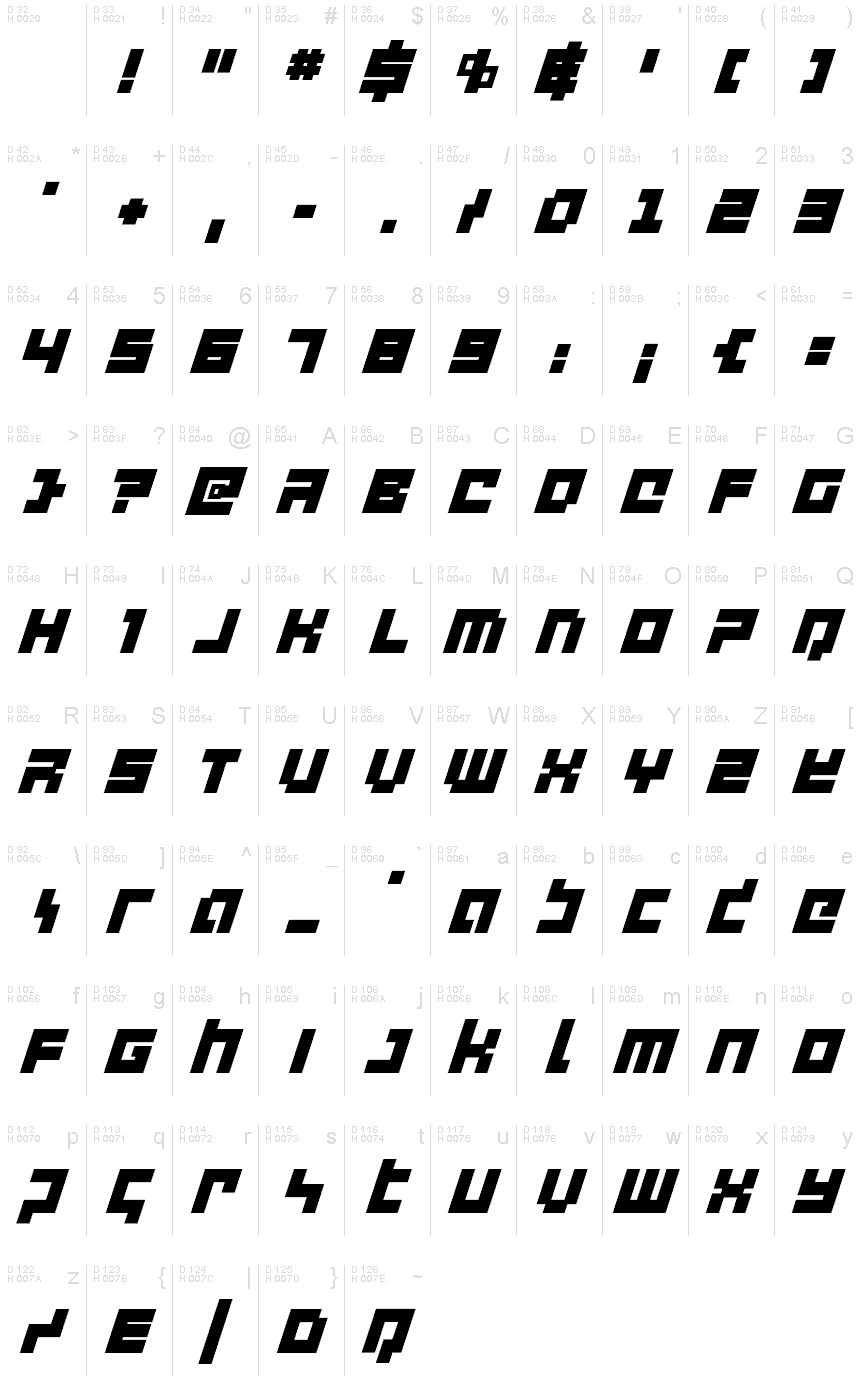
Deep Data Cube Super-italic font by Iconian Fonts is a display techno font with a modular, geometric, structured appearance. Its futuristic and technological look ensures an unparalleled contemporary appeal which makes heads turn at its sight. This bold typeface is composed of deconstructed characters with various stroke widths.
A versatile font for posters, signage, branding designs or logos, banners or headers in magazines or newspapers, book covers especially those of science fiction books, video games such as combat games which target teenagers and young adults who use their smart devices to play often nowadays.